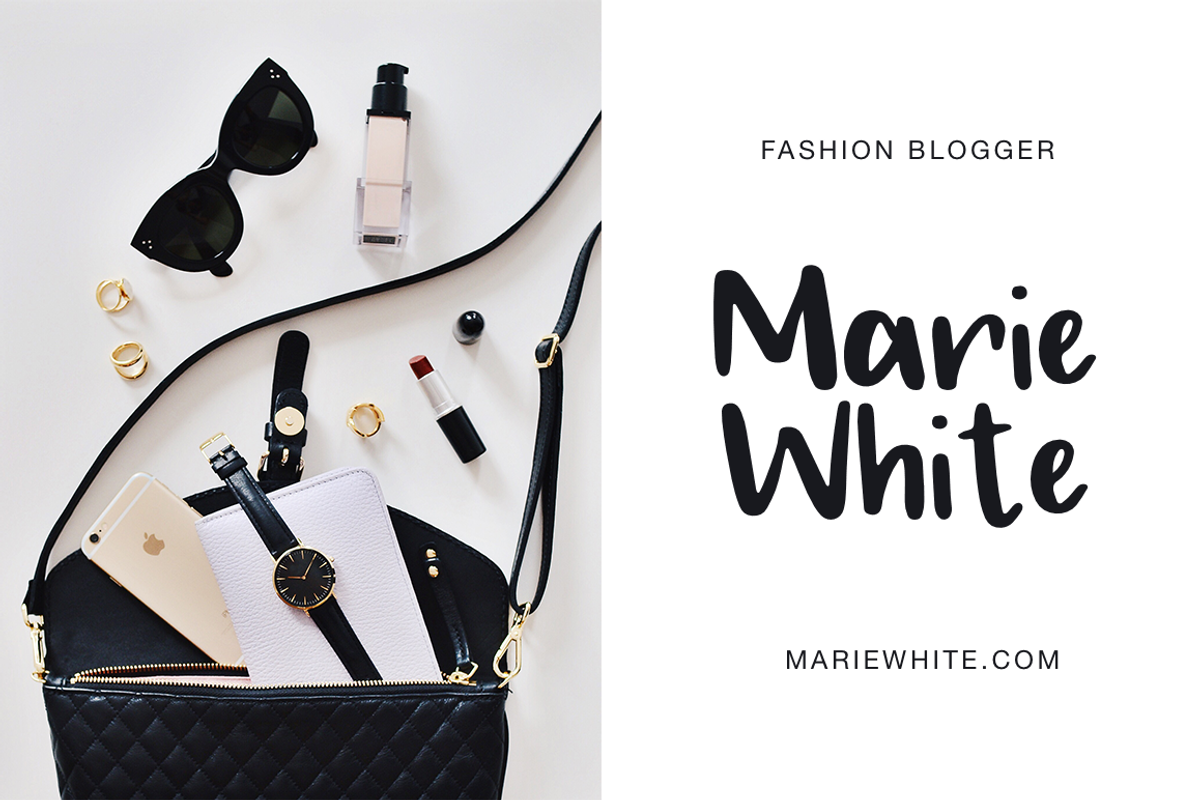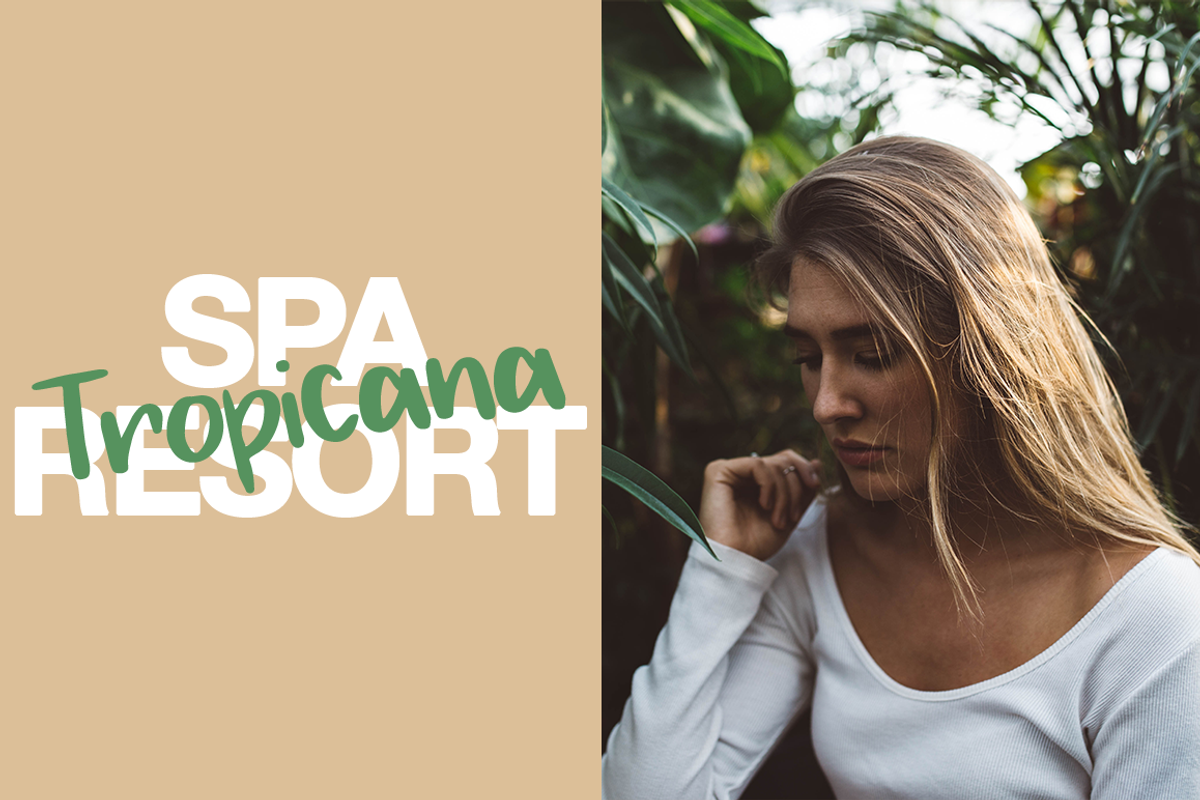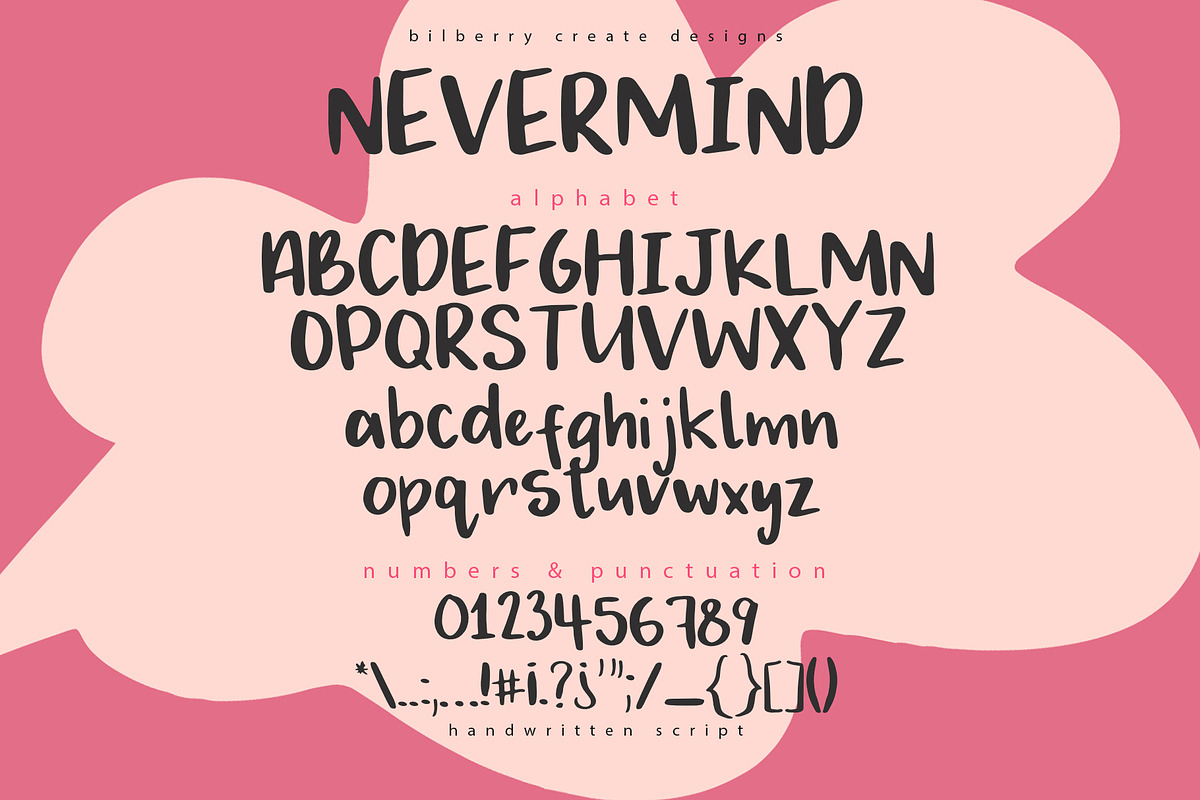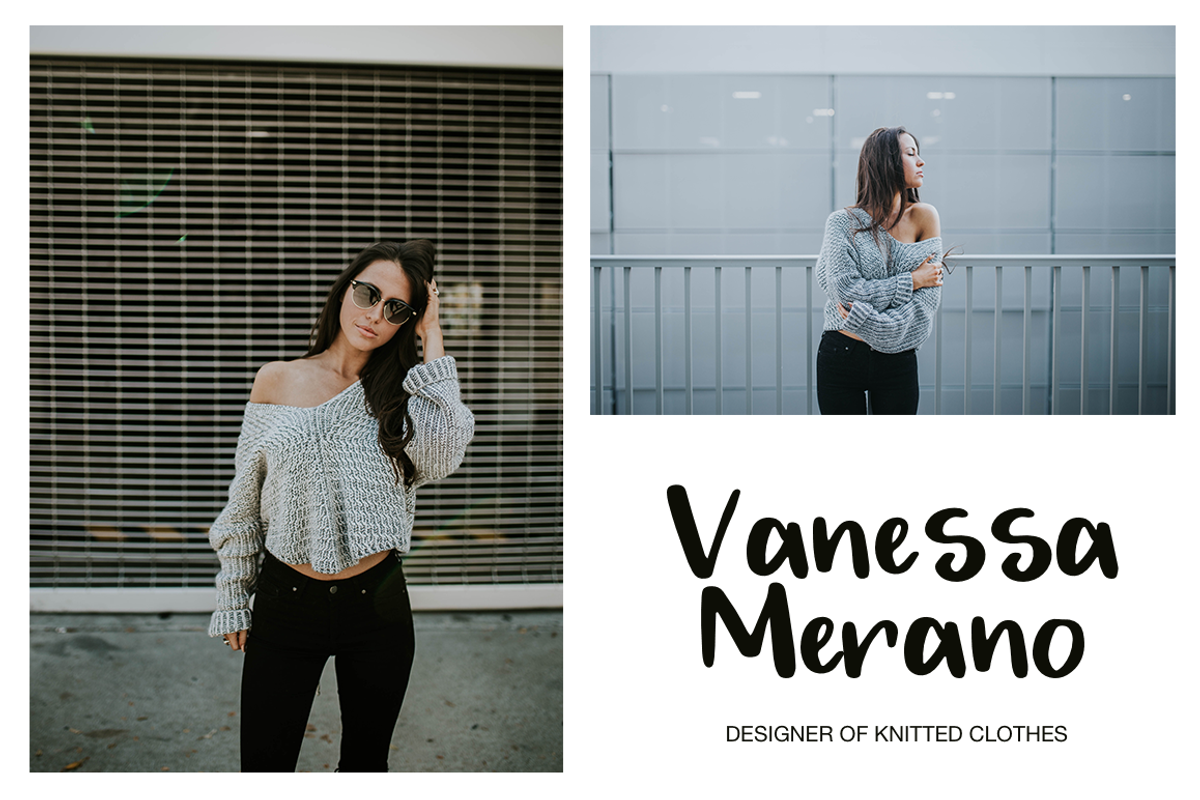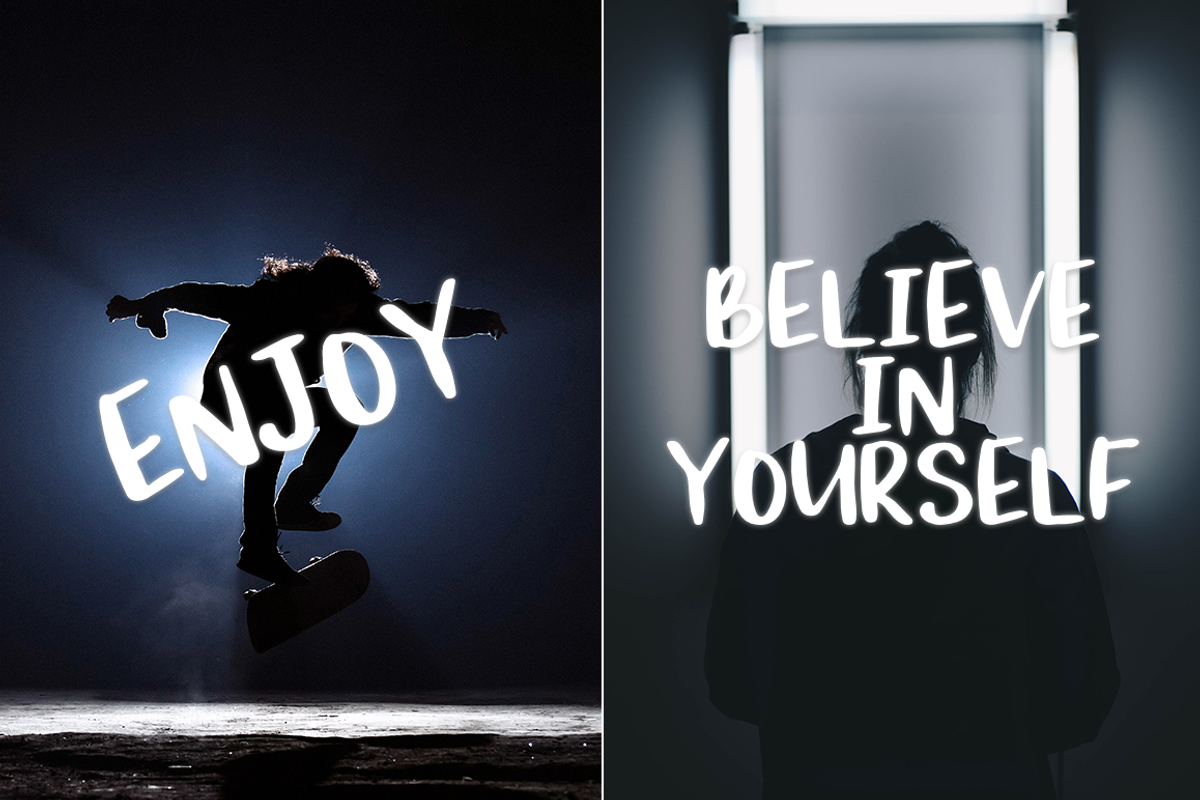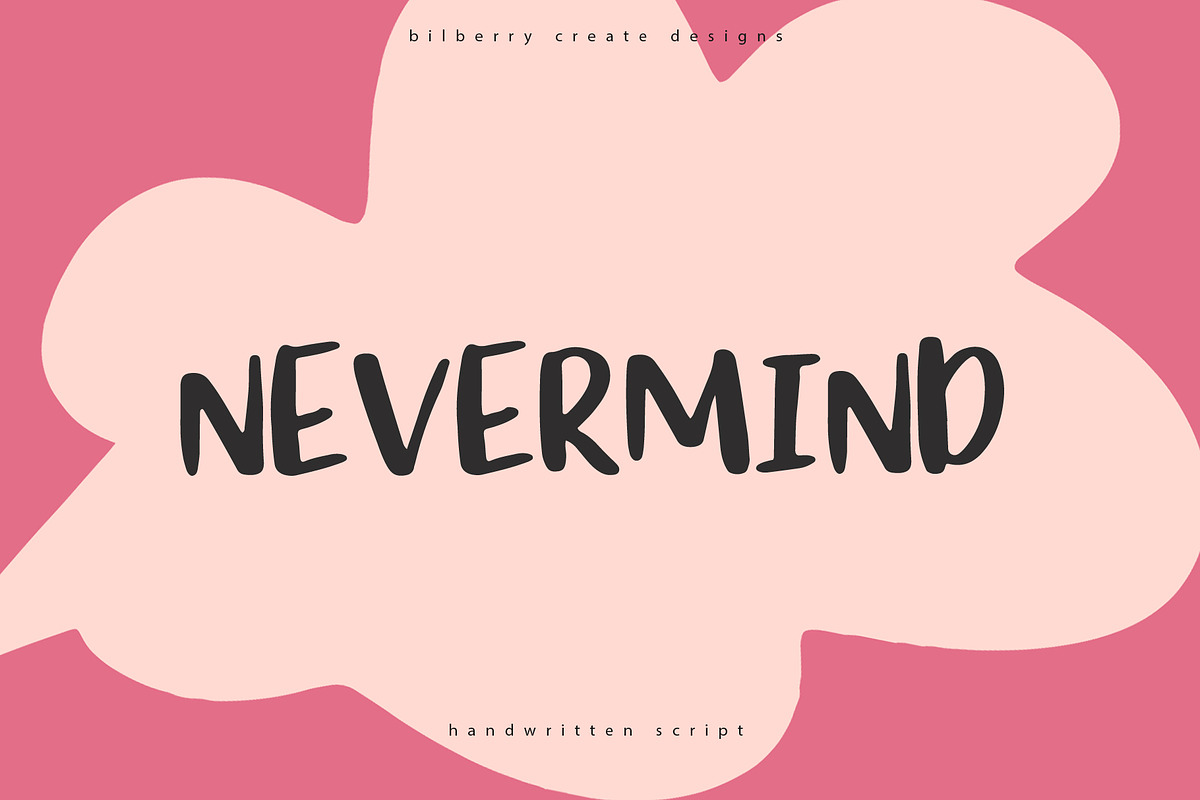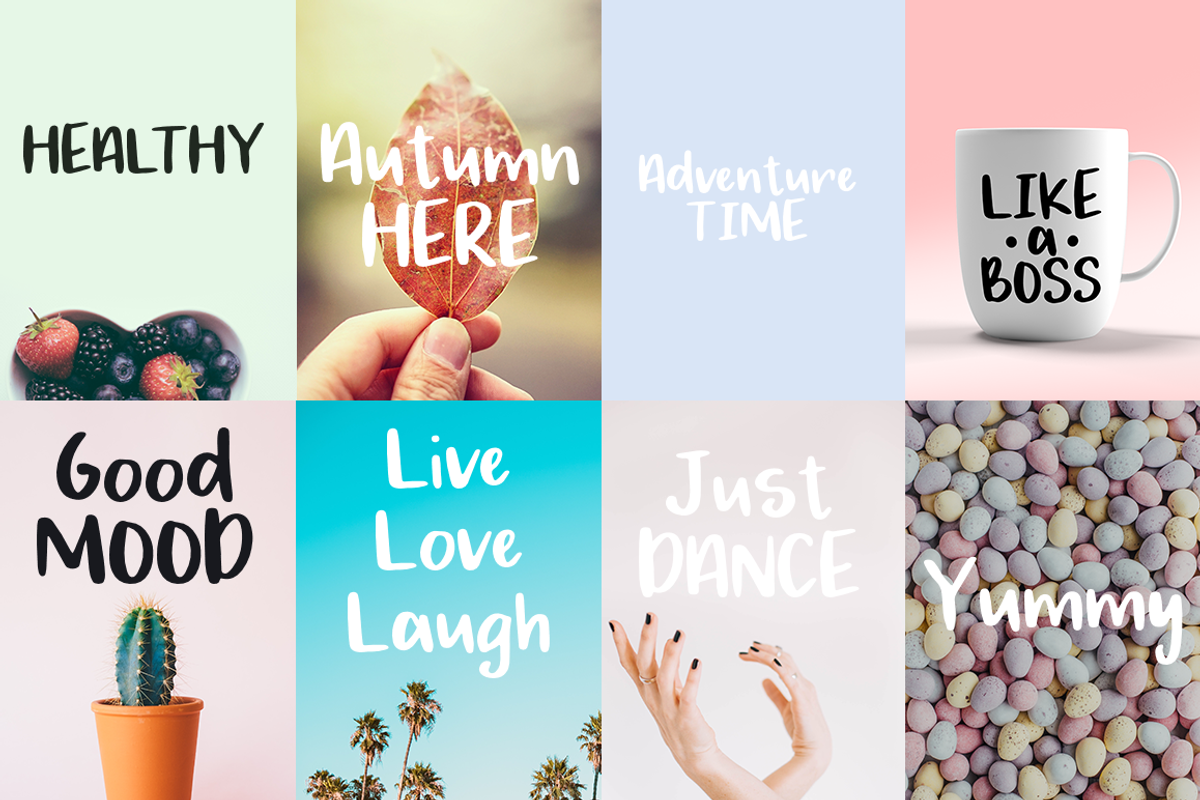
Nevermind script
Meet my new Nevermind handwritten script
Perfect for adding a elegant and unique touch to your lettering projects and branding. Every single letters have been carefully crafted to make your text looks beautiful. With lettering script style this font will perfect for many different project ex: quotes, blog header, poster, wedding, branding, logo, fashion, apparel, letter, invitation, stationery, etc.